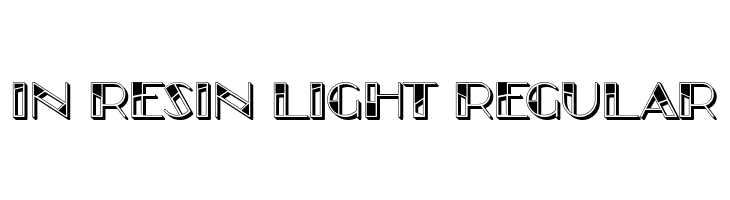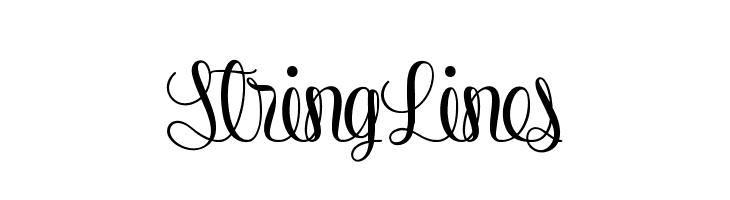
A graceful, handwritten script font with elegant, flowing characters.
A bold, italicized, chrome-like decorative font with a futuristic style.
A bold, geometric font with a 3D effect and modern industrial style.
A bold, cursive font with a playful and energetic style.
A bold, blocky font with a distressed, stamped texture for a rugged, industrial look.
A playful and casual script font with a handwritten style.
A bold, hand-drawn font with textured, sketch-like details.
A futuristic, circuit-inspired font with geometric lines and dots.
A bold, playful, and hand-drawn font with a distressed look.
设计师偏爱 Reshonta, Heavy Falcon Chrome Italic, Favorita Regular, Stay Young Font and Bloxy Stamped,因为其造型干净、适用范围广—— 从品牌识别到落地页、海报都能胜任。